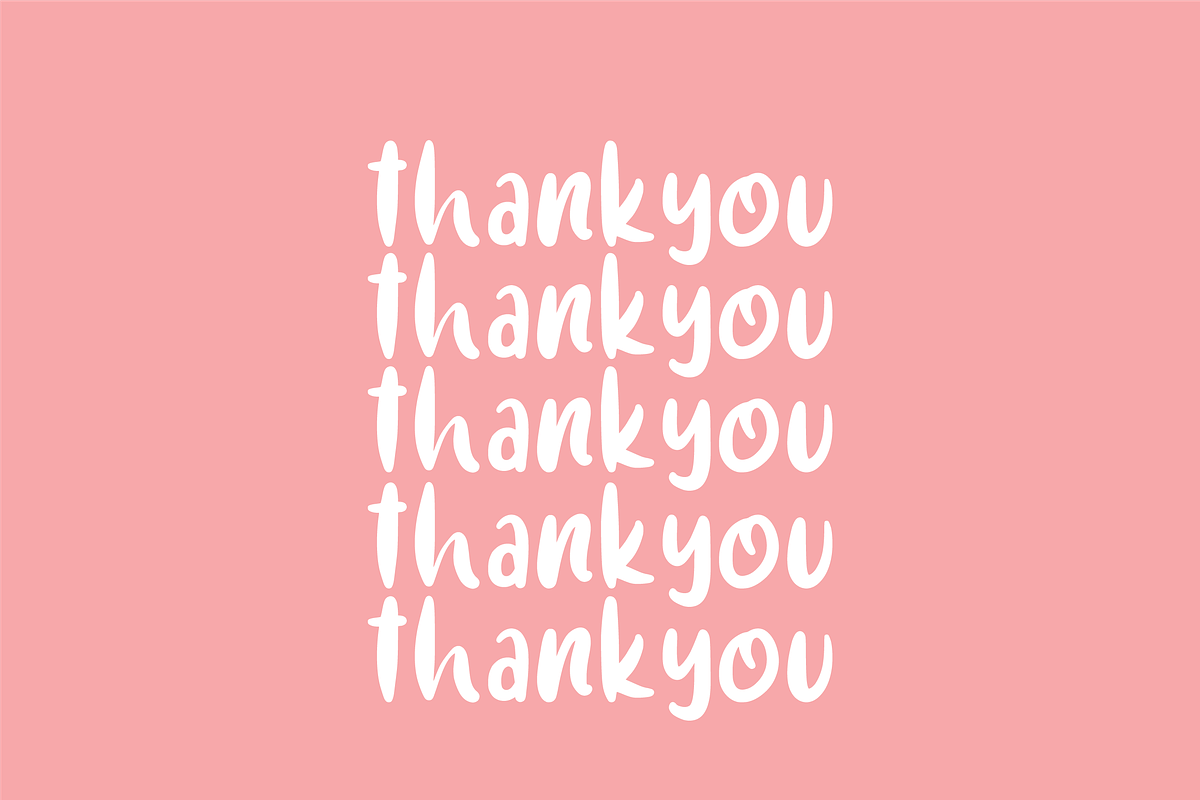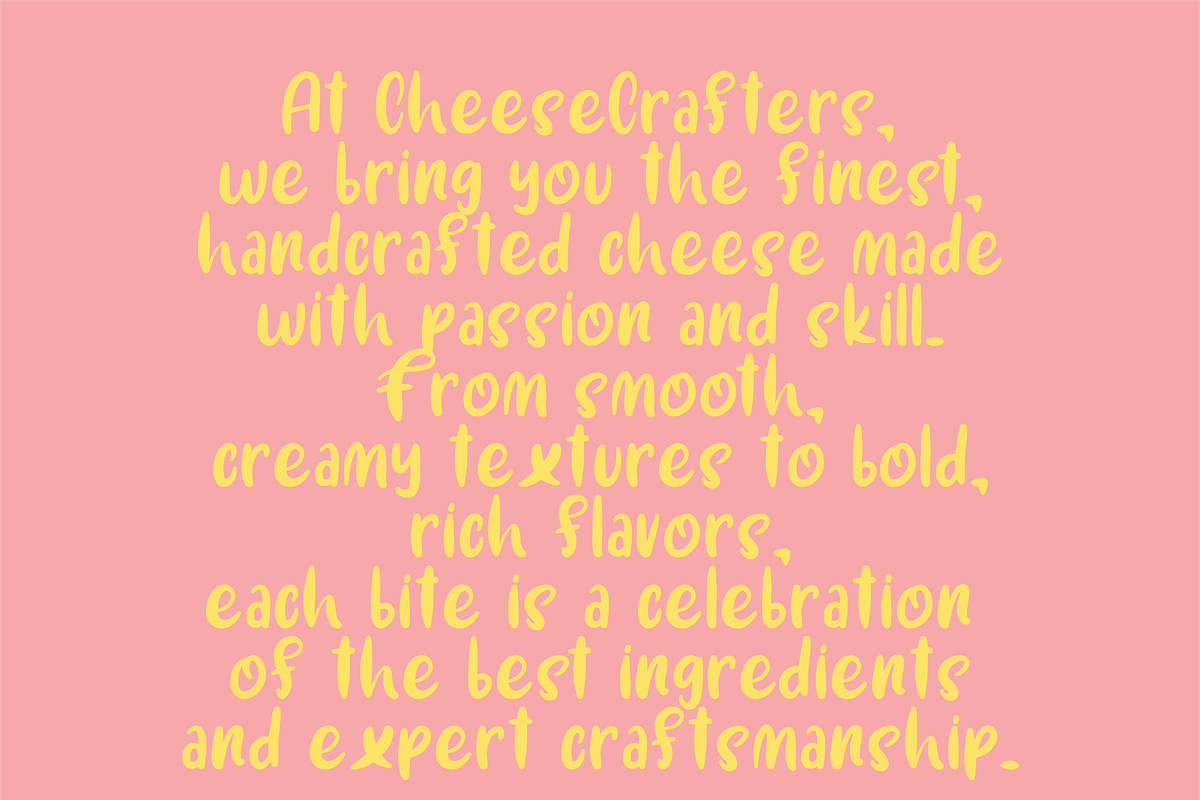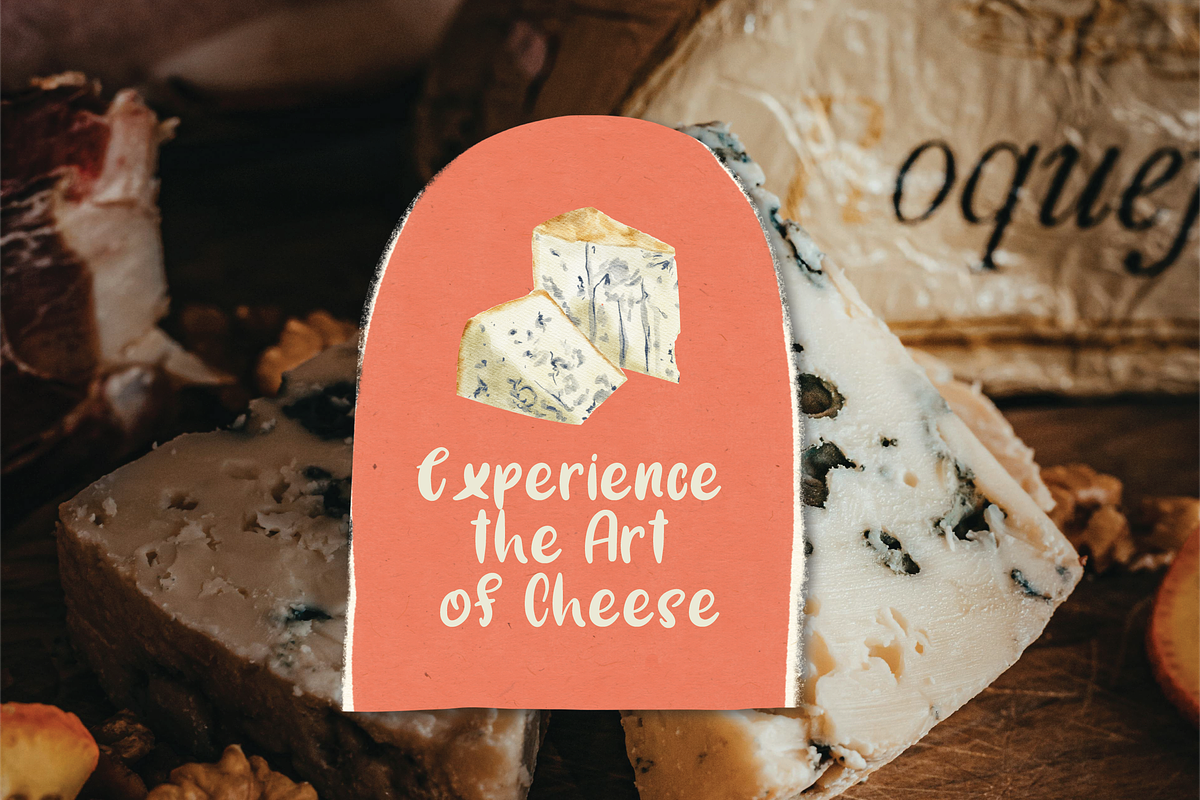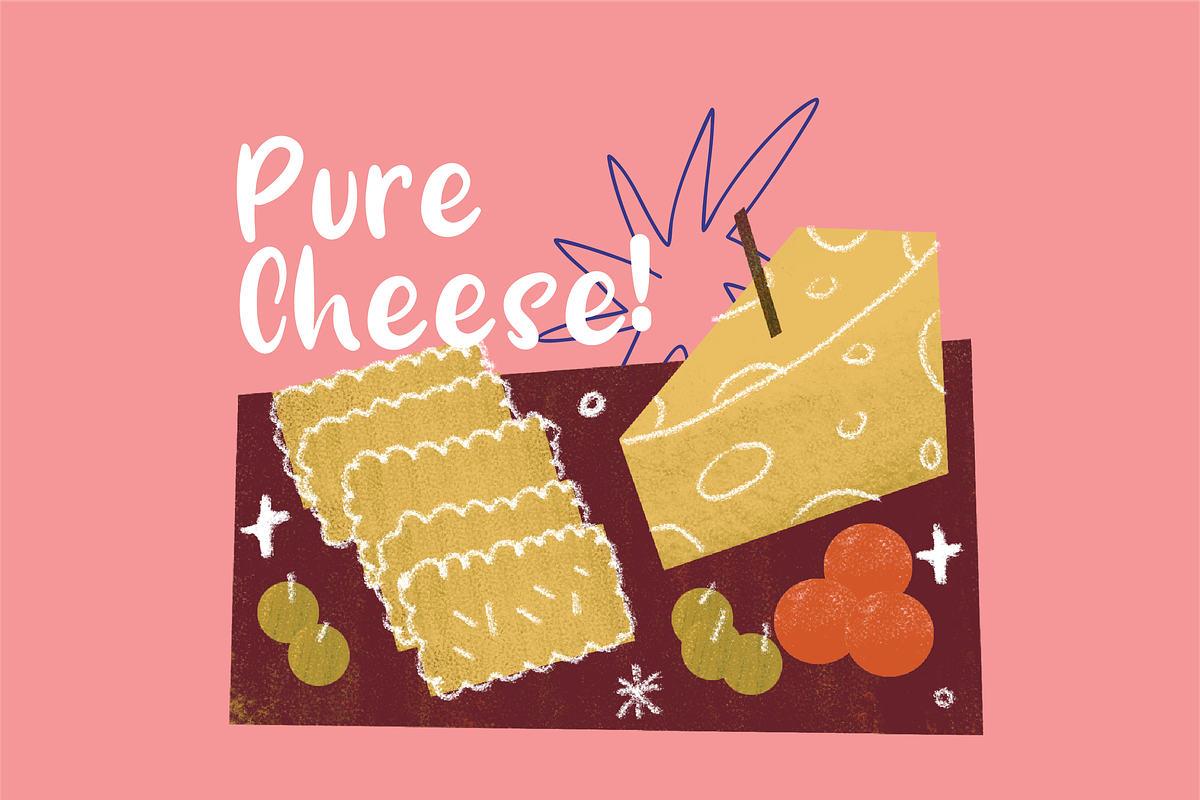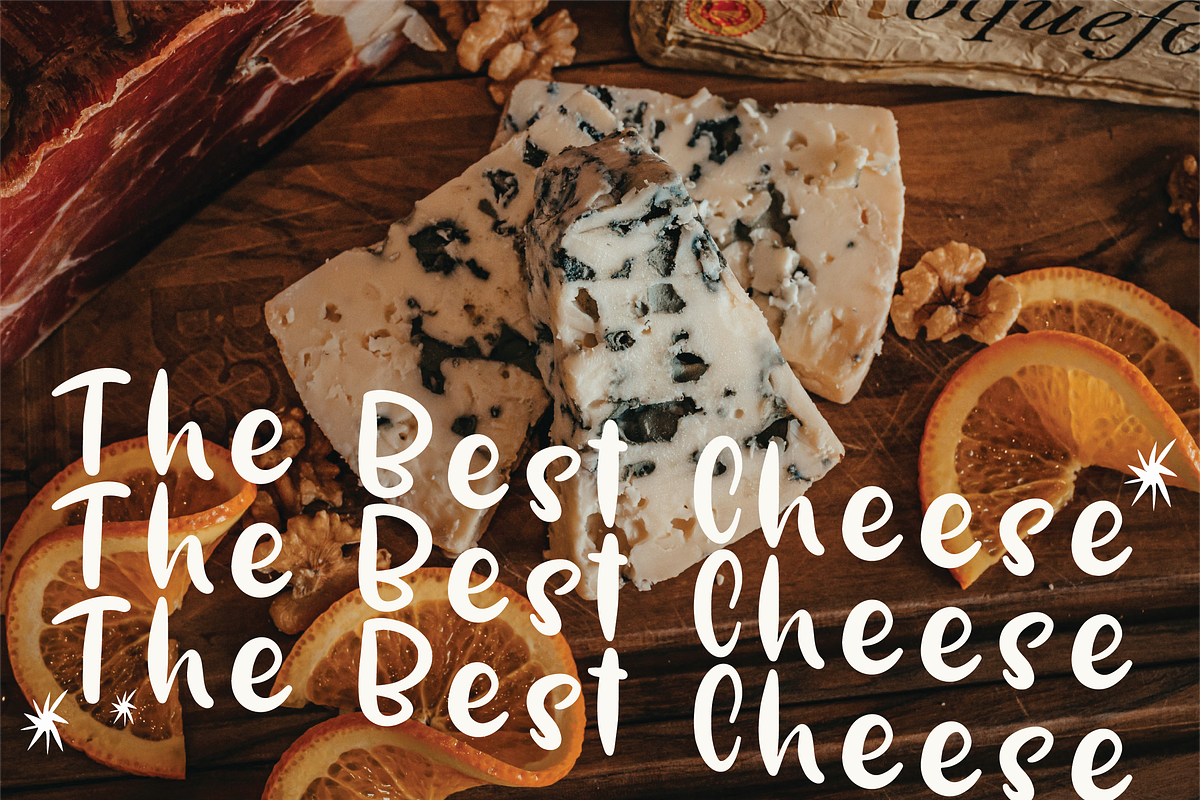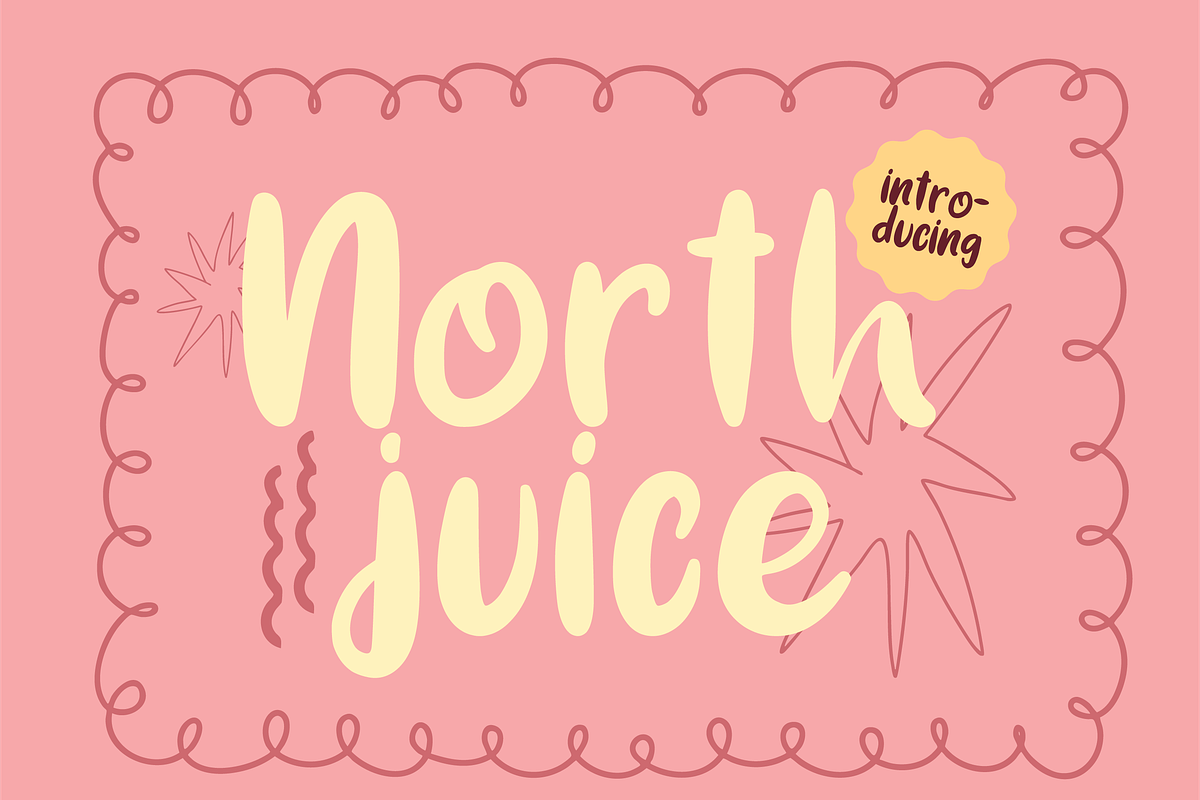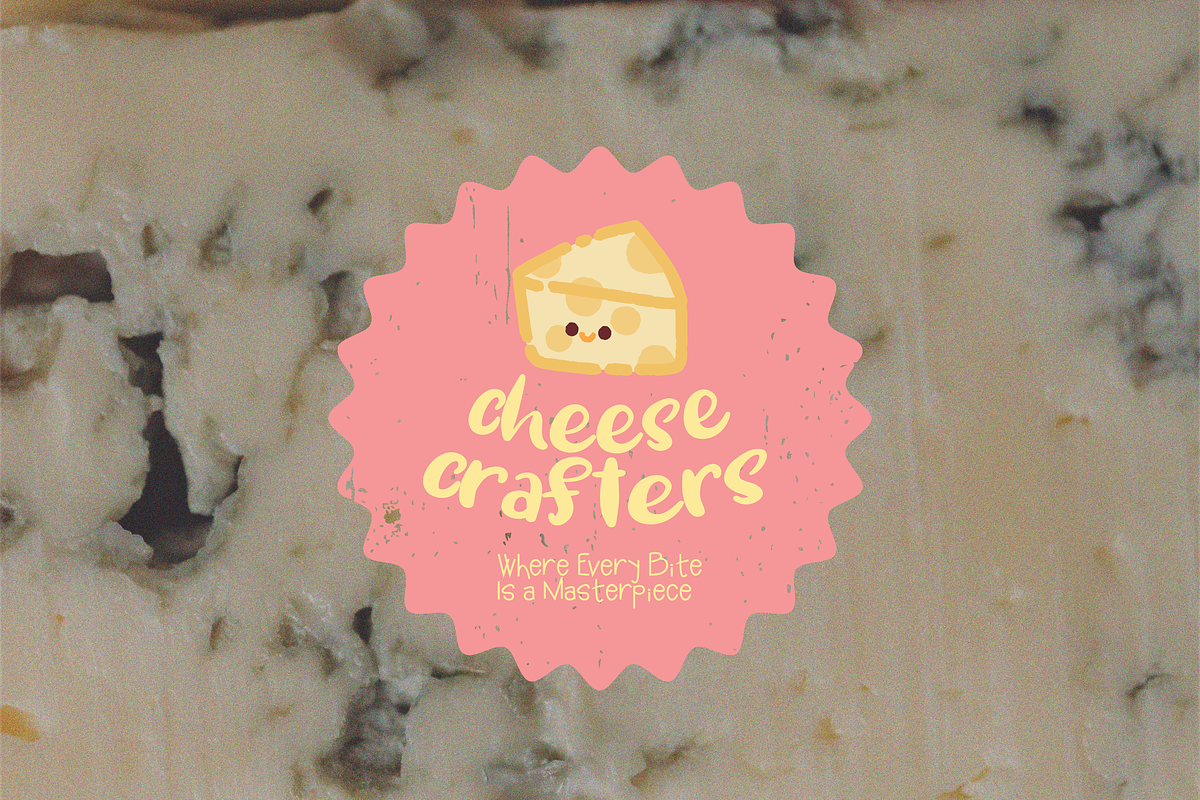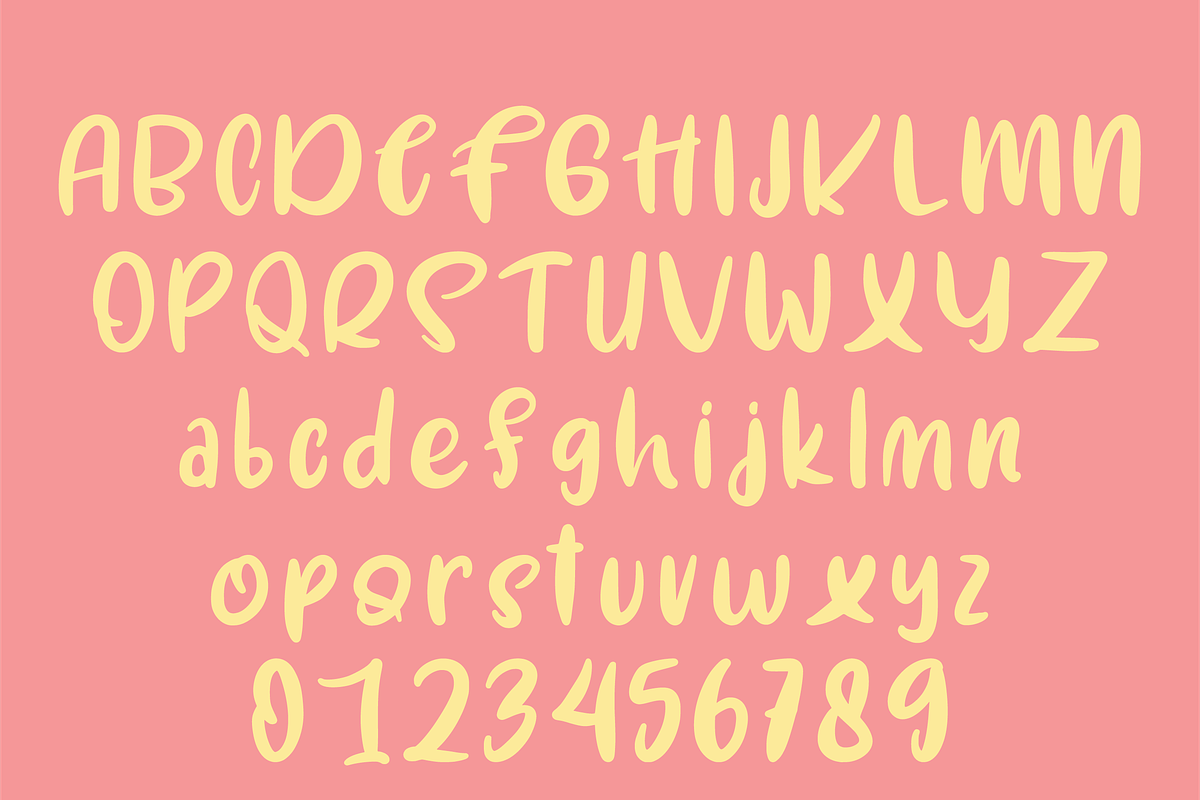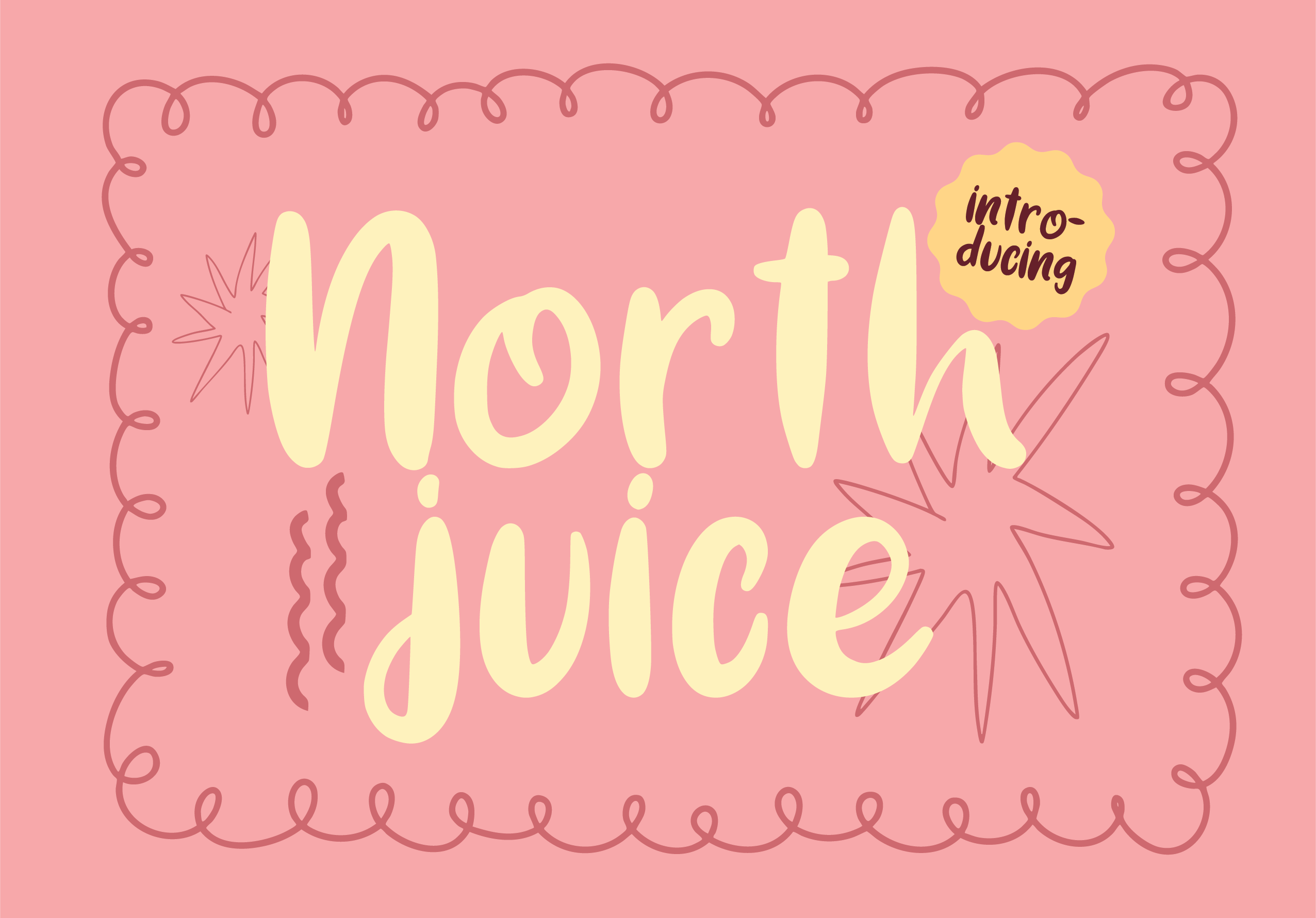
Northjuice - Handwritten Font
Northjuice The font has a soft, playful, and rounded design with smooth, flowing curves. The letters have a hand-drawn, organic feel, giving it a friendly and casual vibe. The light yellow color contrasts nicely against the pink background, adding a warm and inviting tone.